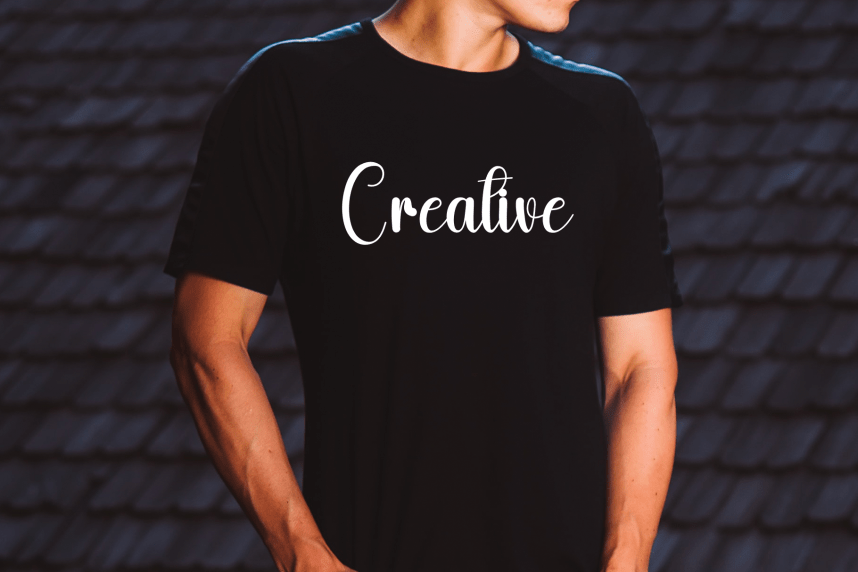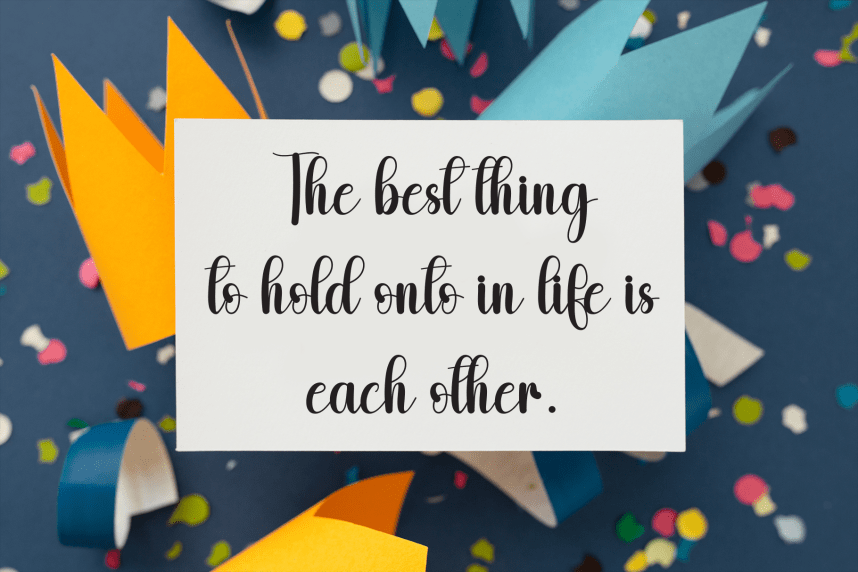
Silhouette – New Script Handwritten Font
Silhouette – New Script Handwritten Font is a sweet and friendly handwritten display font. Cute and fun, this font is ideal for writing wedding invitations, cards, or any other design that might need a playful touch!